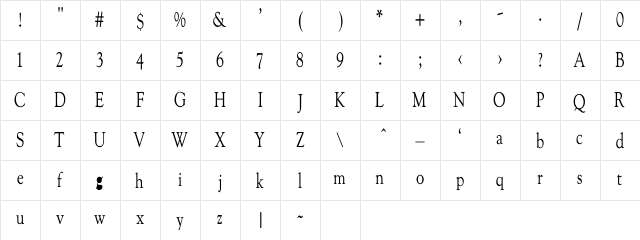
GourdaThin is a composed and adaptable typeface that performs quietly and consistently across a wide range of design contexts. Its slender proportions lend an understated elegance to any composition.